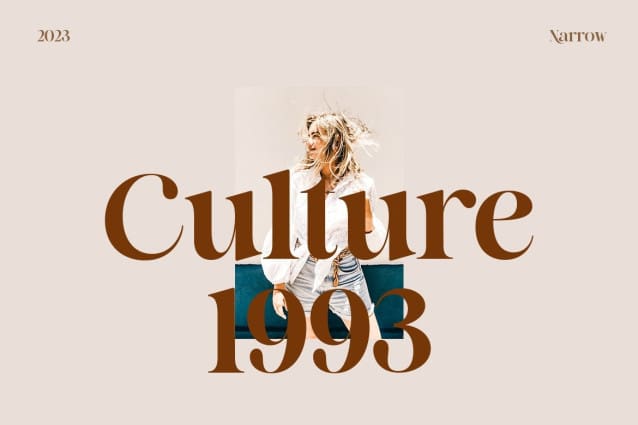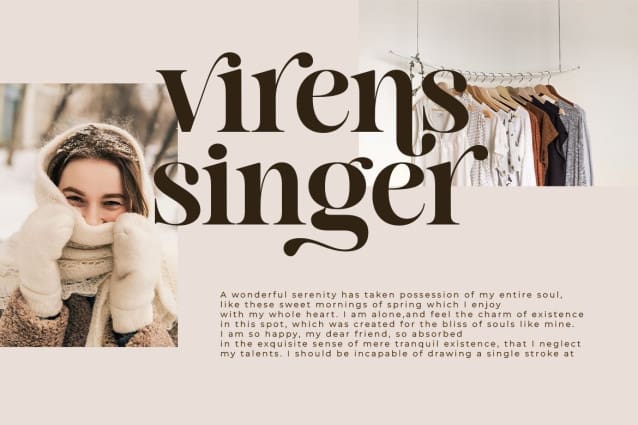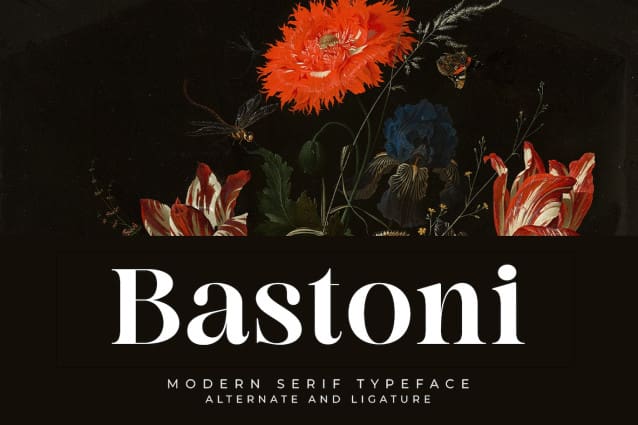
Bastoni Font
Bastoni Font – Modern Luxury Serif Typeface, Perfectly fit for branding, logo, wedding things, greeting cards, fashion, lookbook, marketing promotion, anytime you want to look fancy elegant but still casual.